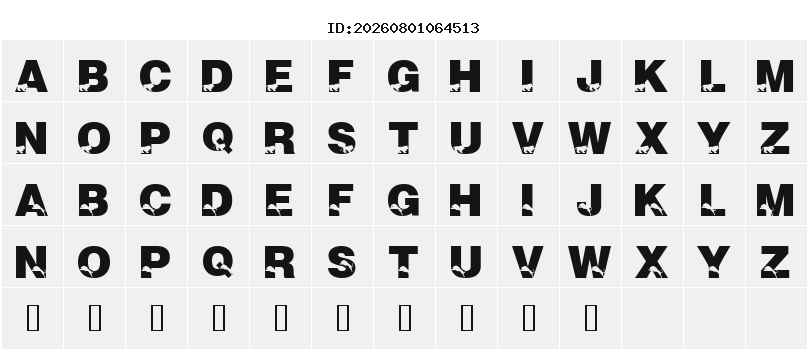
• Font Name: LMS The Lions of Tsavo
About LMS The Lions of Tsavo.ttf
LMS The Lions of Tsavo.ttf is a modern, elegant sans-serif font designed for ultimate readability and visual harmony. Perfect for branding, headlines, web design, and print materials.